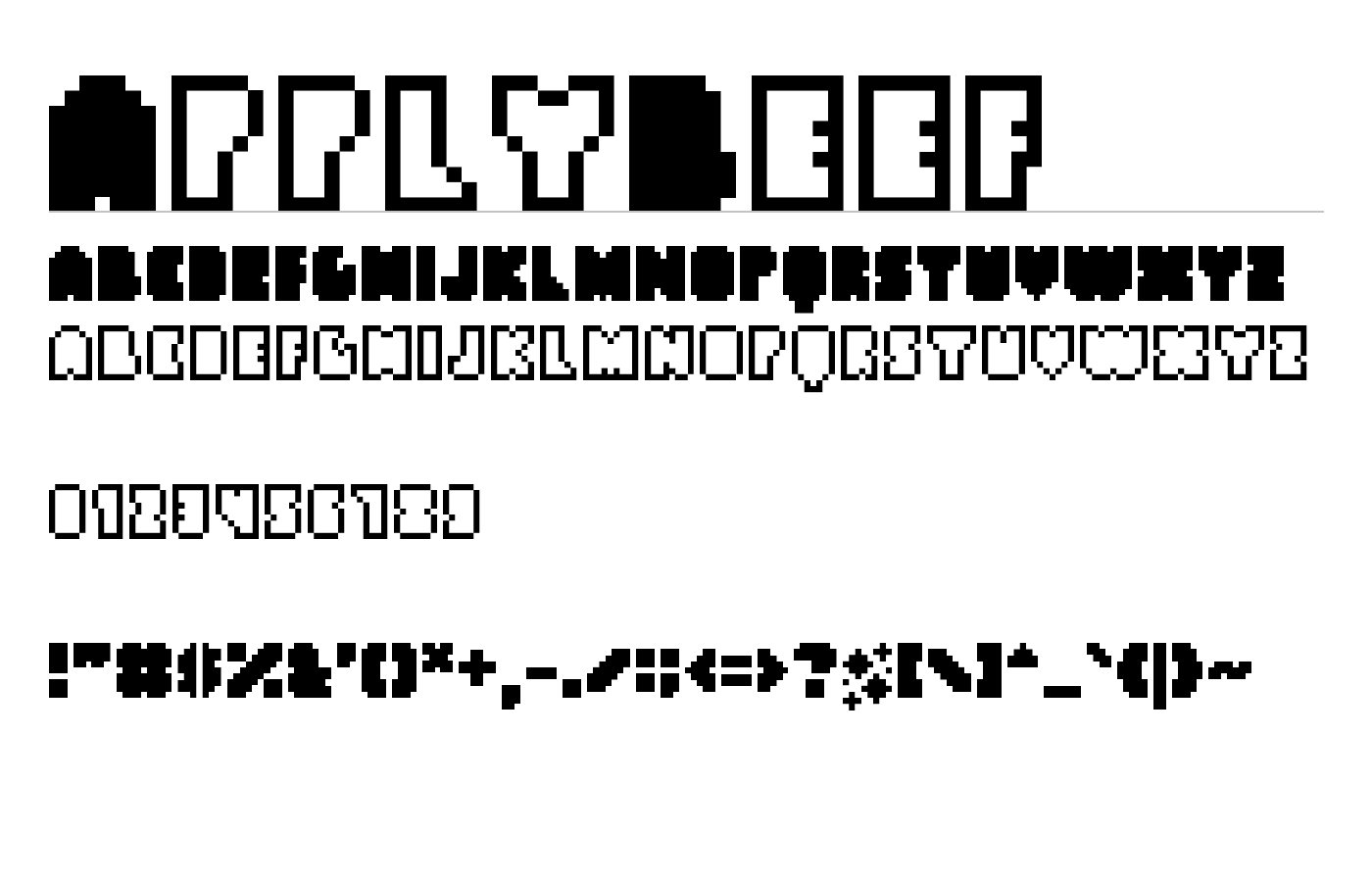
ApplyBeef is a bold, pixel-style sans serif font that embraces a strong, blocky aesthetic with its uniform stroke weight and squared edges. It conveys a retro, digital feel perfect for video game graphics, tech-themed designs, or any project seeking a nostalgic, playful vibe. Its heavyweight, condensed letterforms make it ideal for striking headlines and attention-grabbing logos.
ApplyBeef Font
About ApplyBeef Font